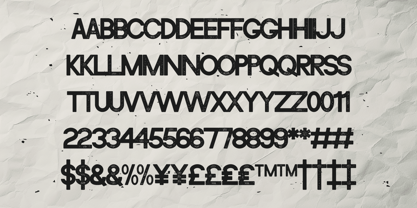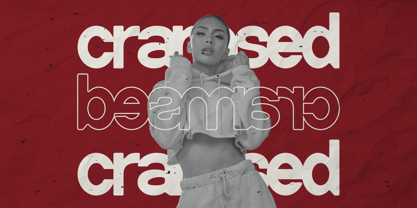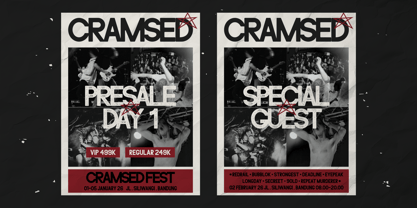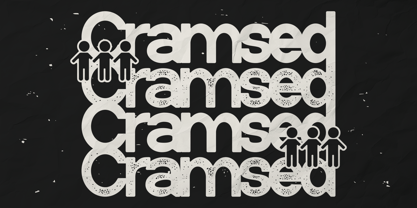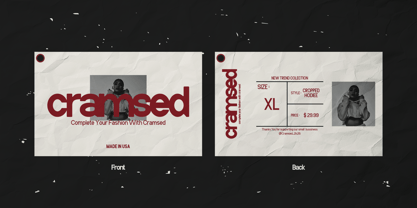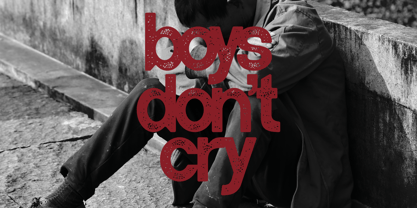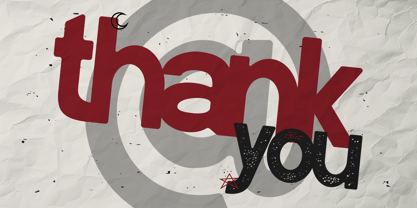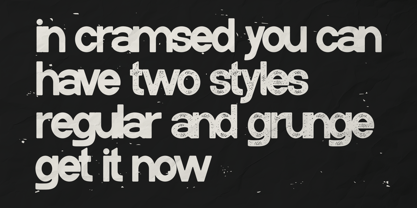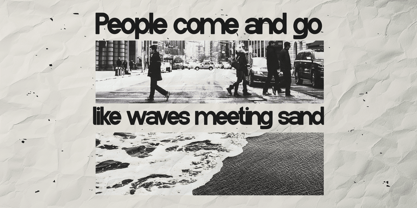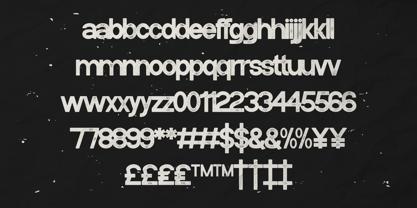
Cramsed
by Razetype
The Cramsed Font Family was designed by Ahmad Faizal and published by Razetype. Cramsed contains 2 styles and family package options. More about this family
Cramsed is a bold, modern display typeface distinguished by its rounded geometric construction and strong visual impact. Built on clean sans-serif foundations, the font features uniform stroke weights, smooth curves, and balanced proportions that enhance clarity and legibility. Cramsed is available in two distinct styles: a clean bold version that delivers a polished contemporary look, and a textured/distressed version that introduces organic imperfections for a gritty, urban, and expressive aesthetic. These dual styles allow designers to switch between a refined modern appearance and a rugged, character-driven tone depending on their creative needs. With its powerful presence and versatile stylistic options, Cramsed excels in headlines, posters, branding, merchandise, and any design project requiring bold, impactful typography.
Designers: Ahmad Faizal
Current Foundry: Razetype